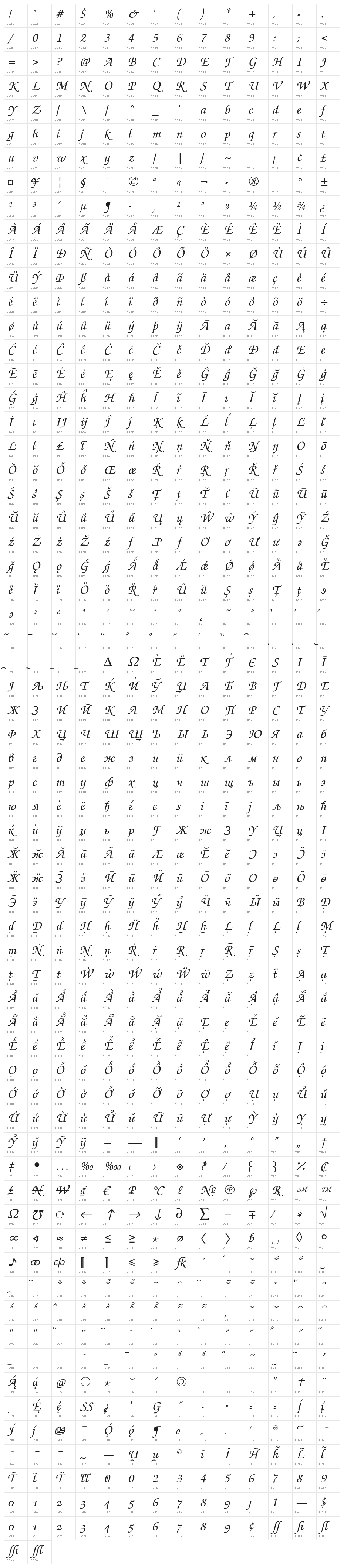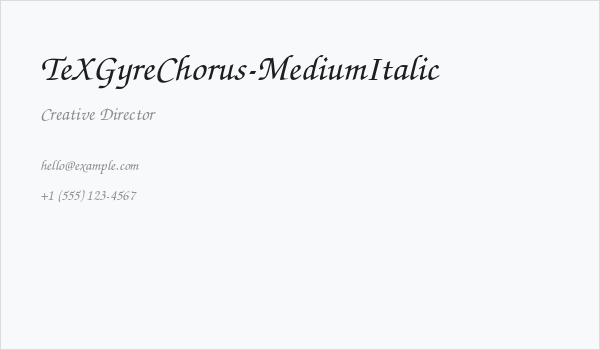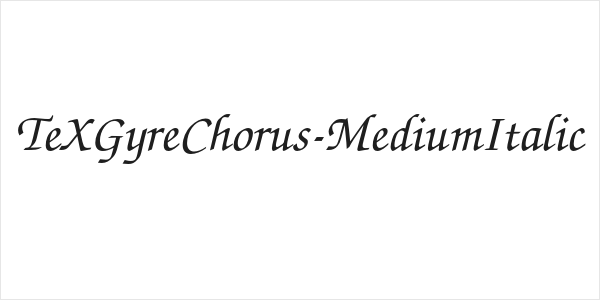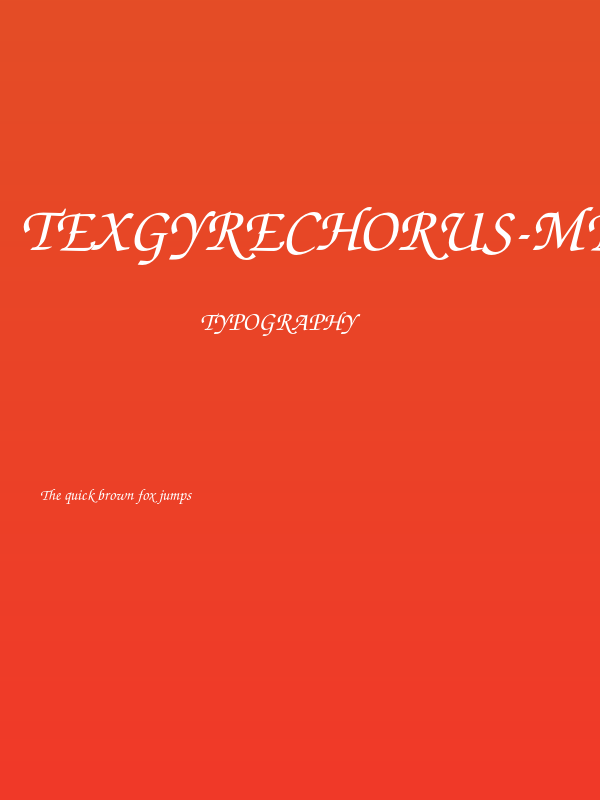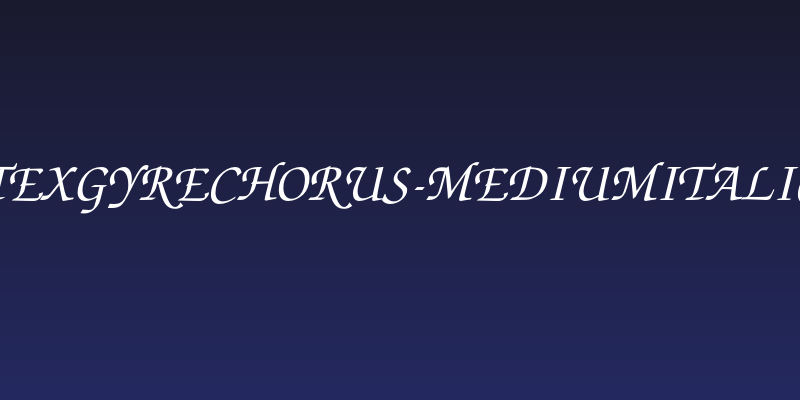
TeXGyreChorus-MediumItalic Font
TeXGyreChorus-MediumItalic Description
This font exudes a classic elegance with its flowing, cursive style. The characters are gracefully slanted, giving it an italic appearance that enhances its sophisticated look. The strokes are smooth and fluid, with a medium contrast between thick and thin lines, adding to its readability and charm. The uppercase letters are bold and commanding, while the lowercase letters maintain a delicate balance, offering a harmonious blend. The numerals and special characters are designed with the same attention to detail, ensuring consistency throughout the typeface. This font is perfect for projects that require a touch of refinement and class.
| Overall Style | Classic |
| Use Case | Headlines, Logos, Invitations |
| Proposed Projects | Ideal for wedding invitations, formal event programs, elegant branding, and sophisticated editorial designs. |